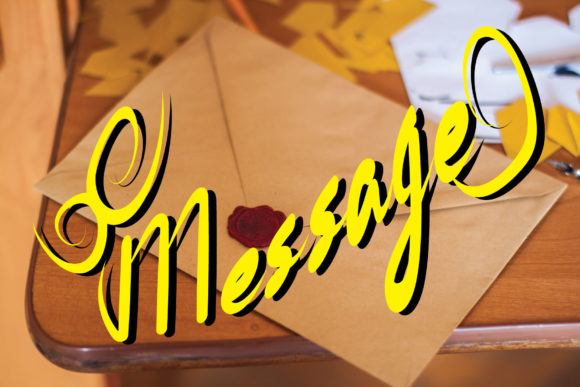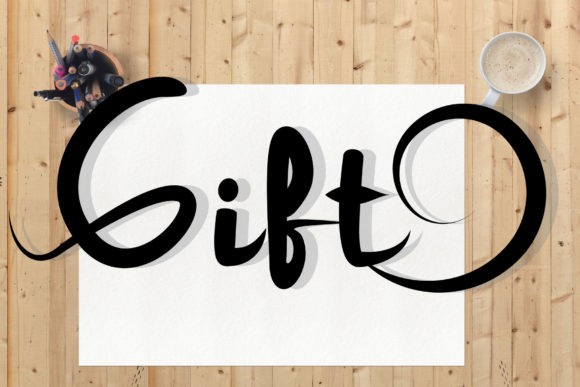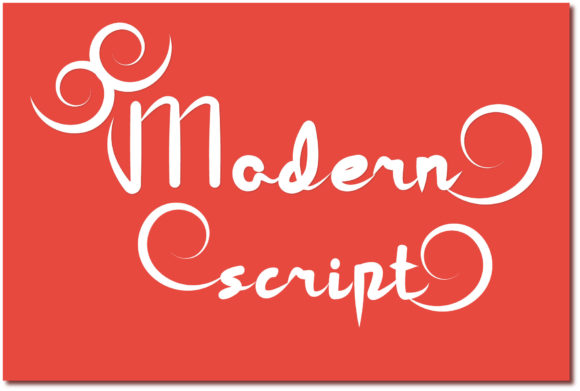
Introduction to Skin Font
As designers, we’ve all had those moments of pure creative bliss when everything comes together in perfect harmony. You’ve poured your heart and soul into a project, and just as you’re about to hit publish, you need the perfect font to bring it all to life. That’s where the Skin Font comes in – a stunning, flowing handwritten font that adds an elegant touch to any design.
Whether you’re working on a free download, a high-quality design resource, or a creative project that requires a touch of sophistication, the Skin Font is sure to impress. With its transparent background and timeless style, it’s the perfect addition to any design. And the best part? It’s available for free download, making it a valuable resource for designers of all levels.
Key Features of Skin Font
- Unique, hand-drawn design with a transparent background, allowing for seamless integration into various backgrounds and designs.
- Perfect for creative projects requiring a unique and eye-catching design element, such as logos, branding materials, and advertising graphics.
Honest Review: Skin Font
I recently came across the Skin Font, a versatile design resource that has caught my attention. As a designer, I’m always on the lookout for high-quality fonts to elevate my creative projects. The Skin Font has a lot to offer, and I’m excited to share my thoughts on it.
- Transparent background: The font has a transparent background, allowing for seamless integration into various design projects.
- High quality: The Skin Font is a well-designed font with crisp lines and smooth curves, making it perfect for both digital and print projects.
- Limited styles: The Skin Font has a limited number of styles, which may not be sufficient for designers working on complex projects.
- No bold or italic weights: The font lacks bold and italic weights, which can be a drawback for designers who require these styles for their projects.
Overall, the Skin Font is a solid design resource that can add a touch of sophistication to your creative projects. While it has some limitations, its high quality and transparent background make it a great option for designers looking for a versatile font.
To maximize the use of Skin Font, experiment with different font sizes, colors, and styles to create a unique look for your creative project. Consider pairing Skin Font with other design elements, such as images or graphics, to enhance visual interest.
Skin Font is ideal for use in a variety of creative projects, including digital graphics, social media graphics, and marketing materials. Its high-quality design and transparent background make it a versatile and practical design resource.